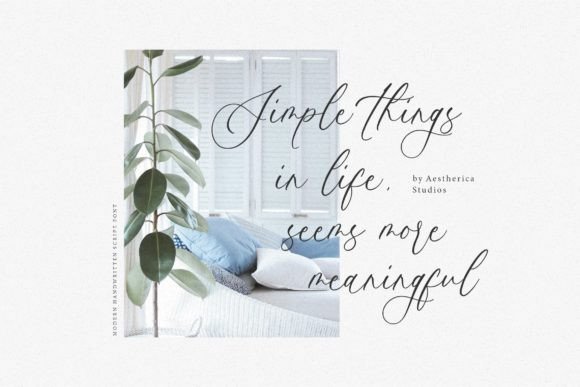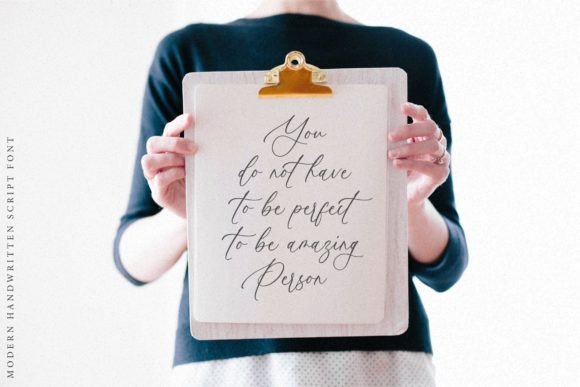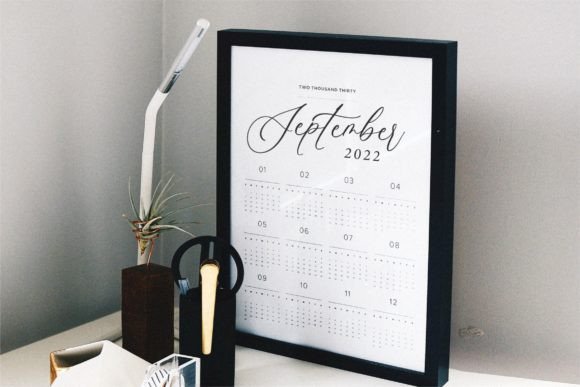
Introduction to Silver Pearl Font
Imagine you’re flipping through a high-end magazine, and a beautiful product packaging catches your eye. The elegant design and delicate typography make you want to learn more about the brand. This is exactly what happens when you use the right design resource – like the Silver Pearl Font. This stunning font is perfect for designers who want to add a touch of sophistication to their projects.
With its high quality and versatile style, the Silver Pearl Font is a valuable addition to any designer’s toolkit. Whether you’re working on a branding project, creating social media graphics, or designing wedding invitations, this font is sure to impress. And the best part? It’s available for free download, making it an accessible resource for designers of all levels.
Key Features of Silver Pearl Font
- High-quality design resource ideal for creative projects, offering a unique and elegant touch.
- Features a clean and minimalist design, making it perfect for use in logos, branding, and digital art.
Honest Review: Silver Pearl Font
I recently had the chance to work with the Silver Pearl Font, and I must say it’s been a fantastic design resource. As a designer, I’m always on the lookout for high-quality fonts that can elevate my creative projects. The Silver Pearl Font does just that.
Here are some of the things that work well with the Silver Pearl Font: ✨
- High-quality design: The font is crisp and clean, making it perfect for a variety of creative projects.
That being said, there are a few limitations to be aware of: ⚠️
- Limited font styles: While the font itself is beautiful, the available styles are somewhat limited.
- Not suitable for large text: Due to its delicate design, the font may not be the best choice for large text or headings.
Overall, I’m impressed with the Silver Pearl Font. While it may have a few limitations, its high-quality design and transparent background make it a valuable resource for any designer working on a creative project.
Tips for Getting the Most Out of Silver Pearl Font
Experiment with different font sizes and styles to create a visually appealing design. Use the font in combination with other design elements to create a cohesive look. Don’t be afraid to try new things and push the boundaries of your creativity.
The Silver Pearl Font is perfect for a variety of creative projects, including wedding invitations, business cards, and marketing materials. Its high quality and elegant design make it a great choice for any project that requires a touch of sophistication and class.